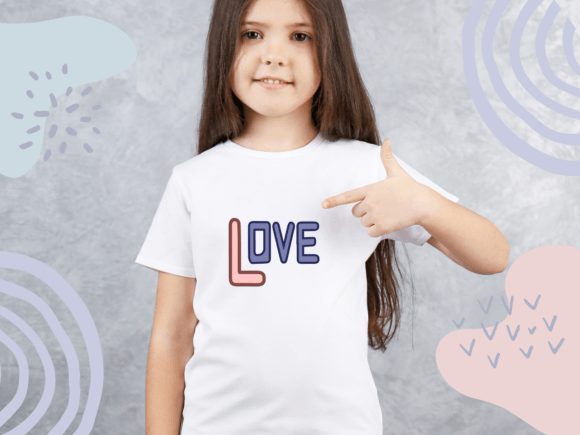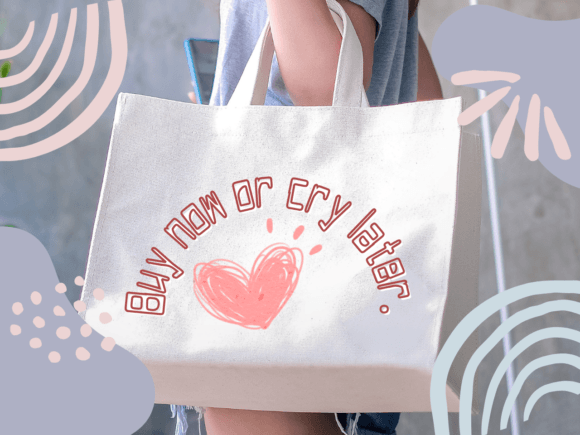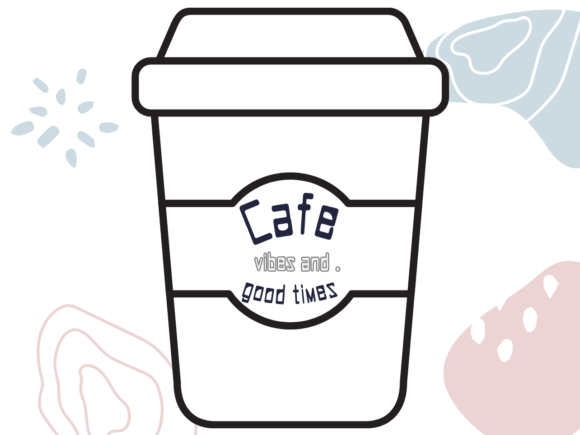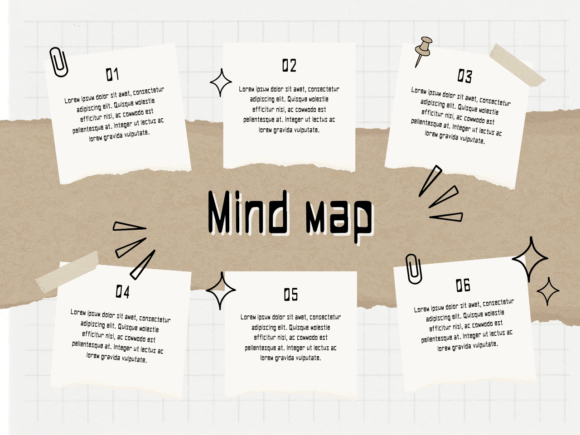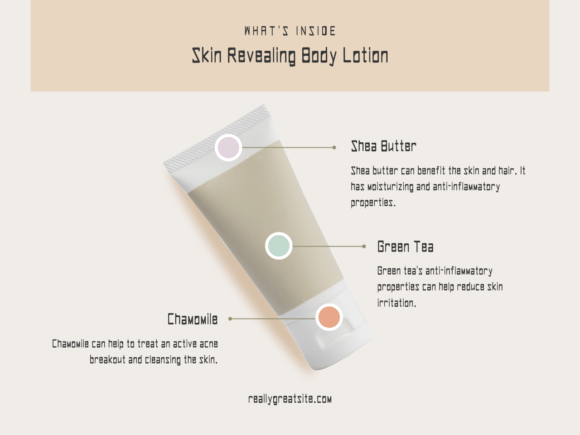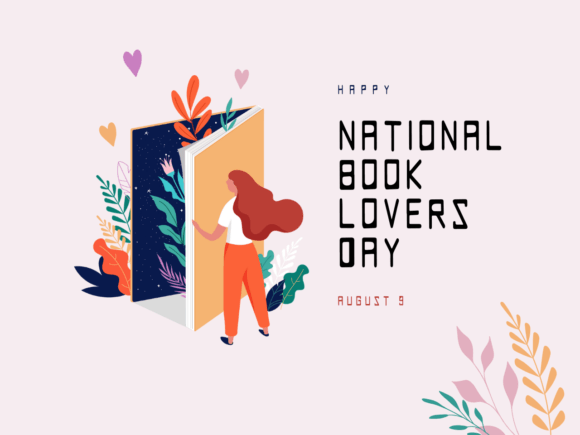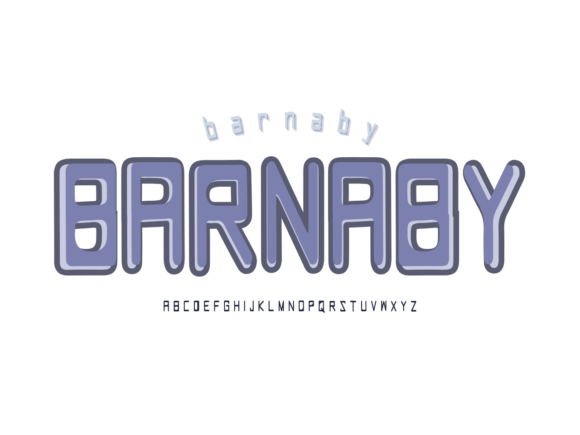
Barnaby Font: The Ultimate Display Font for Friendly and Fun Designs
Are you tired of using the same old fonts for your designs? Look no further than Barnaby Font, a childish and easy-to-read display font that’s perfect for adding a touch of friendliness to your projects. Whether you’re a designer, crafter, or simply someone who loves to create, Barnaby Font is sure to become your new go-to font for all occasions.
The Characteristics of Barnaby Font
Barnaby Font is a unique and charming display font that’s designed to convey a sense of impeccable friendliness. Its childish and playful style makes it perfect for a variety of design projects, from crafts and digital designs to presentations and greeting cards. The font’s easy-to-read design ensures that your message will be clear and concise, making it ideal for use in a wide range of applications.
Why Designers Love Barnaby Font
Designers love Barnaby Font for its versatility and wide range of uses. Whether you’re creating a logo, brochure, or social media graphic, this font is sure to add a touch of personality and whimsy to your design. The font’s friendly and approachable style makes it perfect for brands that want to convey a sense of approachability and warmth. Plus, its easy-to-read design ensures that your message will be clear and concise, making it ideal for use in a wide range of applications.
Why Crafters Love Barnaby Font
Crafters love Barnaby Font for its ability to add a personal touch to their projects. Whether you’re making greeting cards, scrapbooking, or creating DIY crafts, this font is sure to add a touch of whimsy and personality to your work. The font’s childish and playful style makes it perfect for use in a wide range of craft projects, from handmade cards to decorative signs.
Using Barnaby Font in Digital Design
Barnaby Font is also perfect for use in digital design, including presentations, social media graphics, and website headers. The font’s easy-to-read design ensures that your message will be clear and concise, making it ideal for use in digital applications. Plus, its friendly and approachable style makes it perfect for brands that want to convey a sense of approachability and warmth.
Tips for Using Barnaby Font
Here are a few tips for using Barnaby Font in your designs:
• Use Barnaby Font as a display font to add a touch of personality to your design.
• Pair Barnaby Font with a simple sans-serif font for a clean and modern look.
• Experiment with different colors and textures to add depth and interest to your design.
• Use Barnaby Font in combination with images and graphics to create a visually appealing design.
In conclusion, Barnaby Font is a versatile and charming display font that’s perfect for adding a touch of friendliness to your designs. Whether you’re a designer, crafter, or simply someone who loves to create, this font is sure to become your new go-to font for all occasions. With its easy-to-read design and childish and playful style, Barnaby Font is the perfect choice for a wide range of design projects, from crafts and digital designs to presentations and greeting cards.
Get Ready to Fall in Love with Barnaby Font